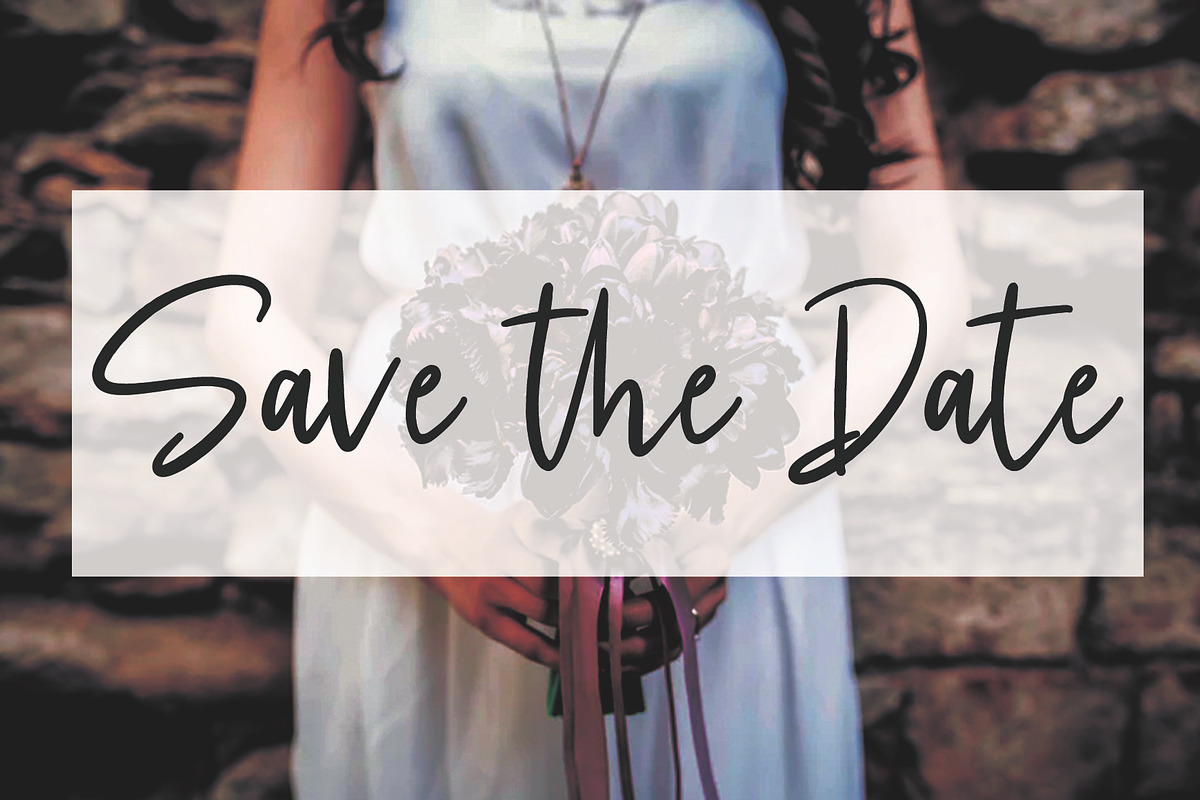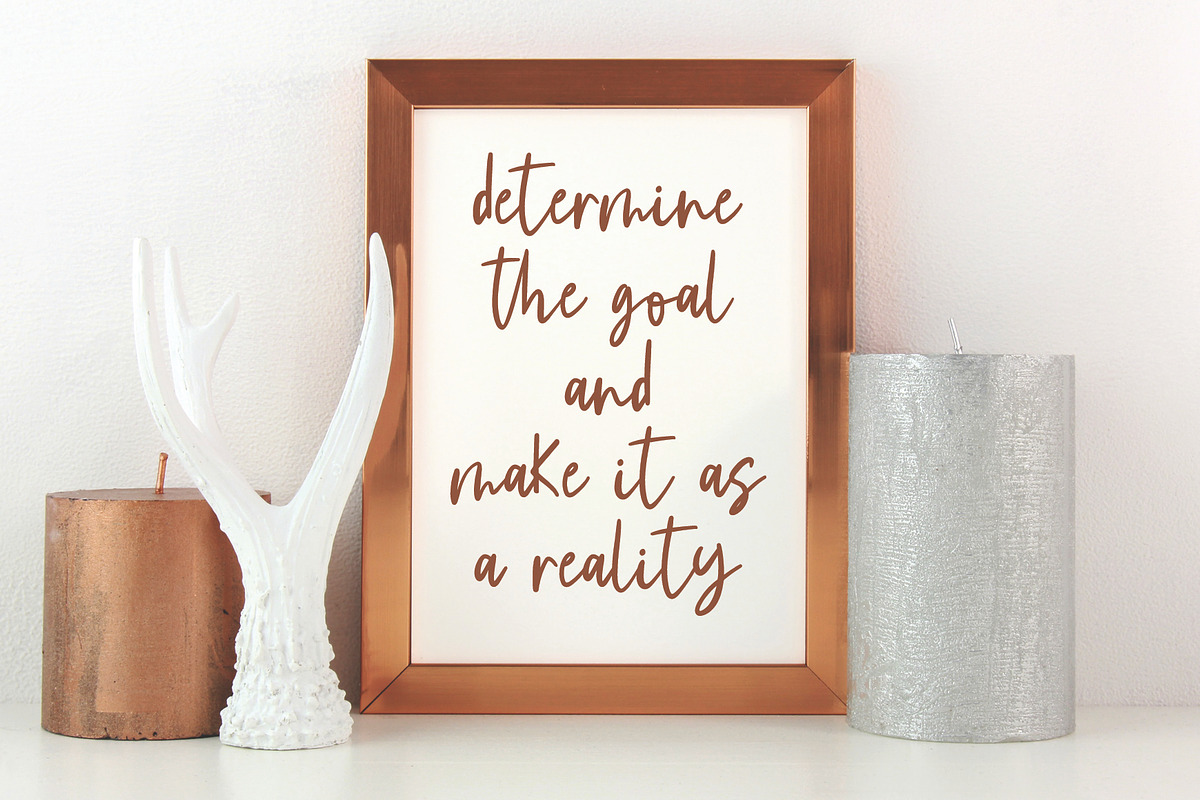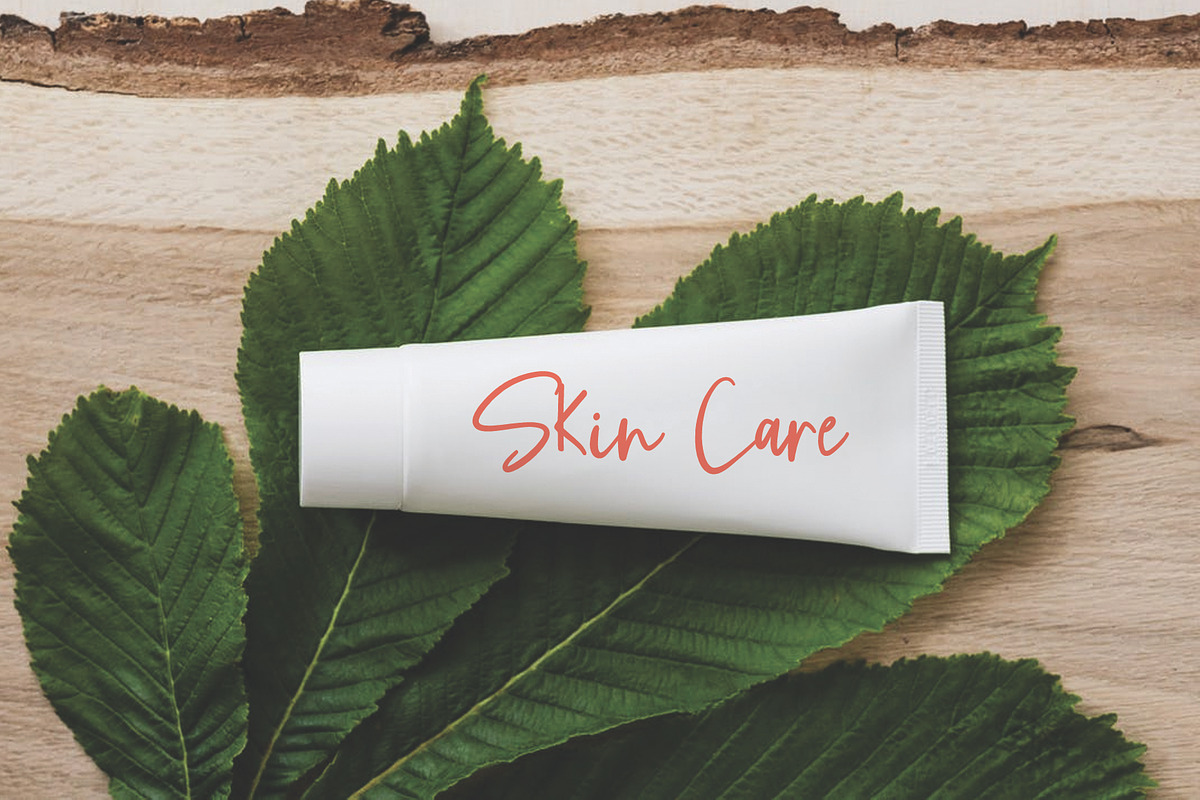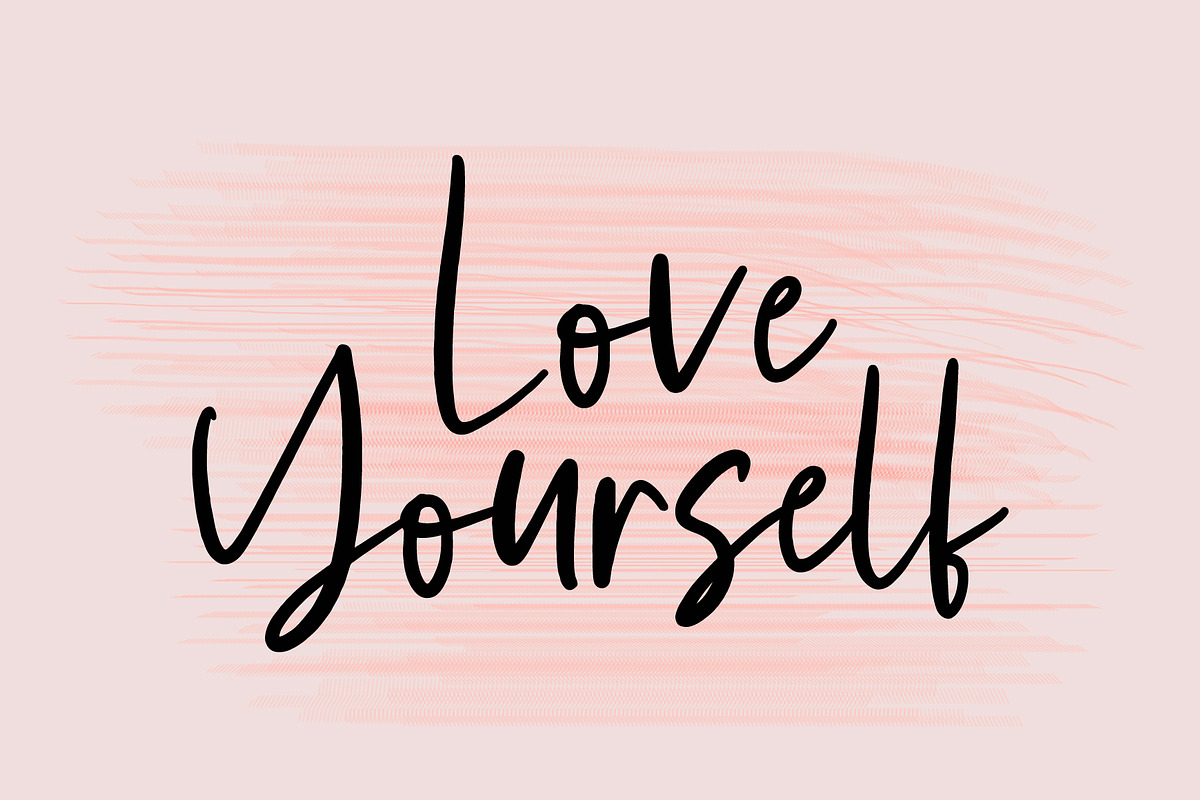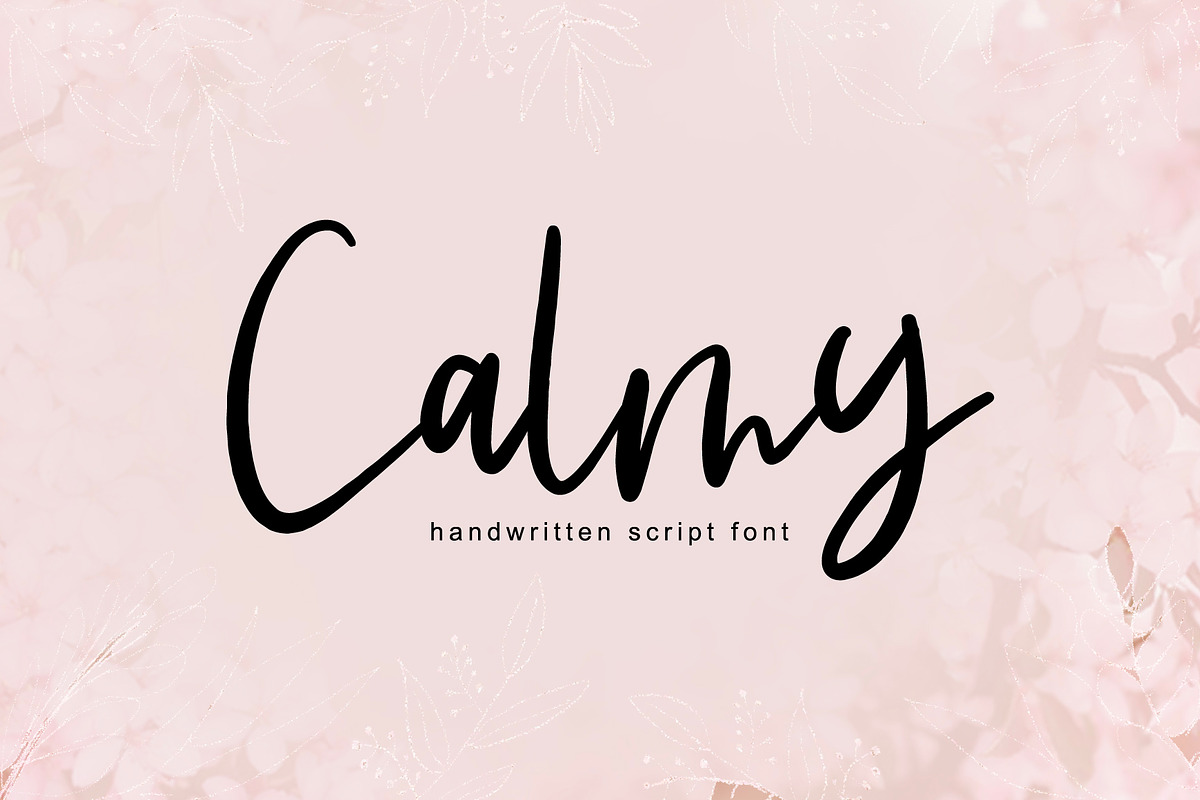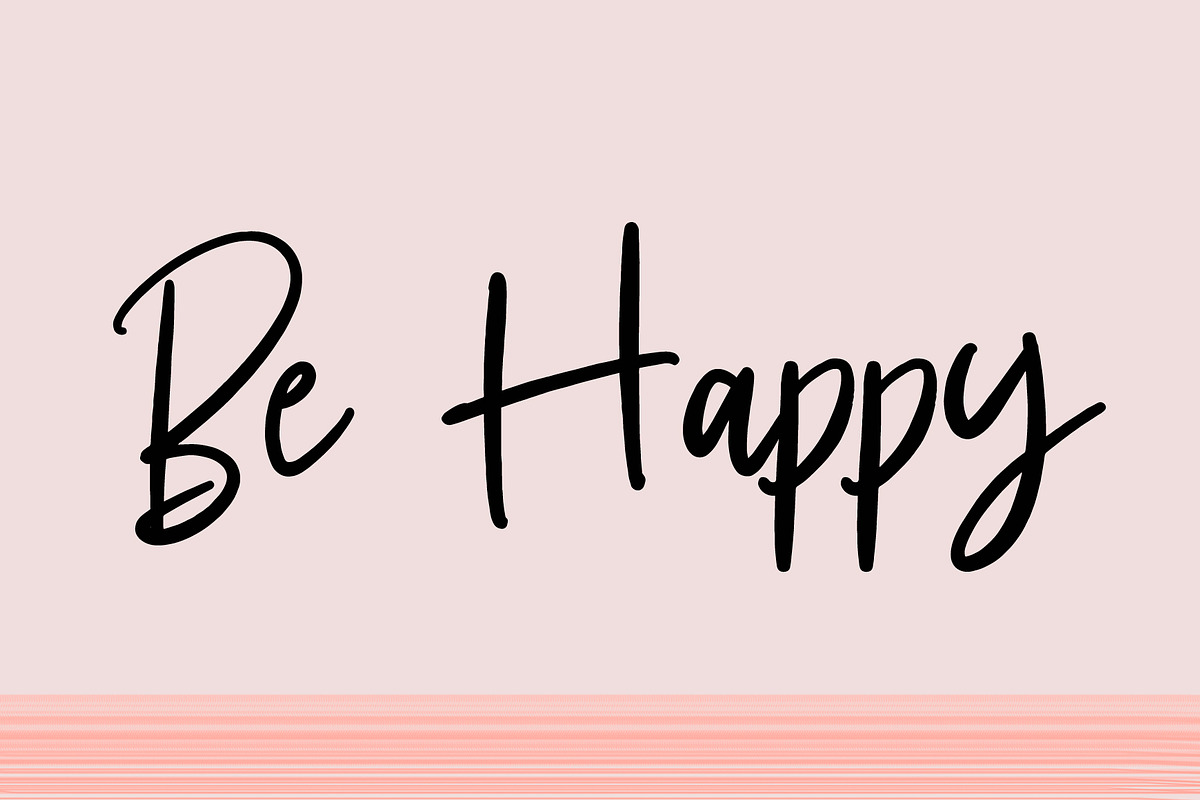
Calmy | Handwritten Script Font
Calmy is a simple, asymmetrical and relaxed handwritten font. Featuring characters that dance along the baseline, this font will add a luxury spark to any design project that you wish to create!
This font is perfect for branding, wedding invitation, cards, promotion, social media, product packaging, and other needs. This font is modern, simple, but still authentic. You will get full set of lowercase and uppercase letters, numerals and punctuation, multilingual symbols and ligatures.